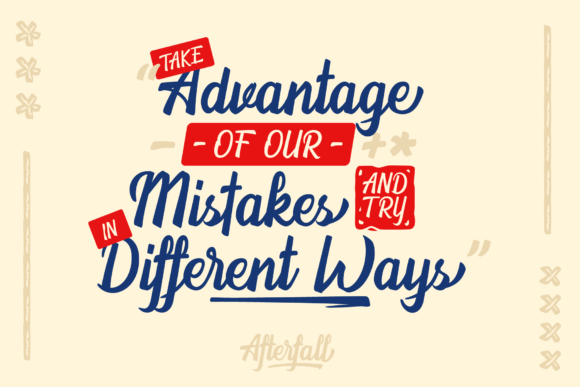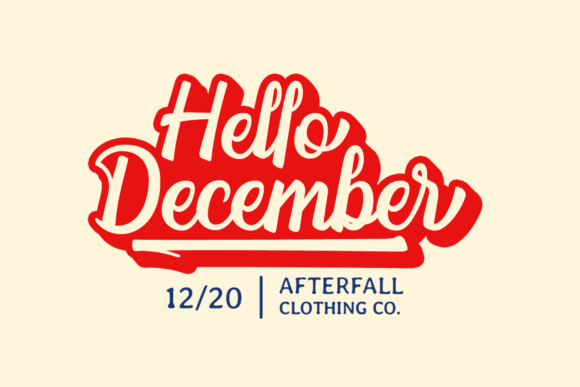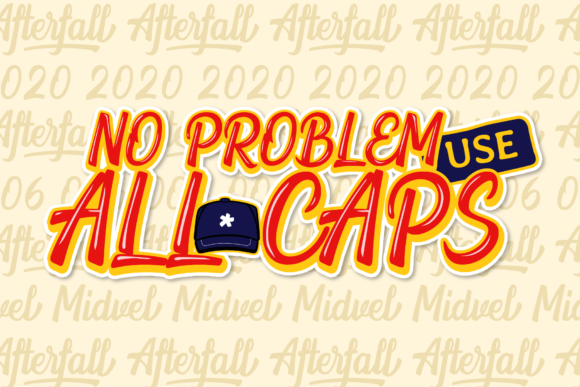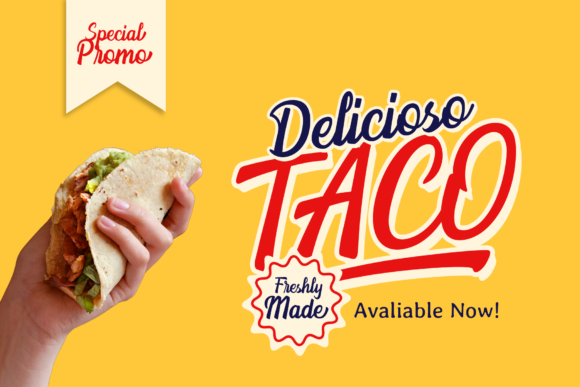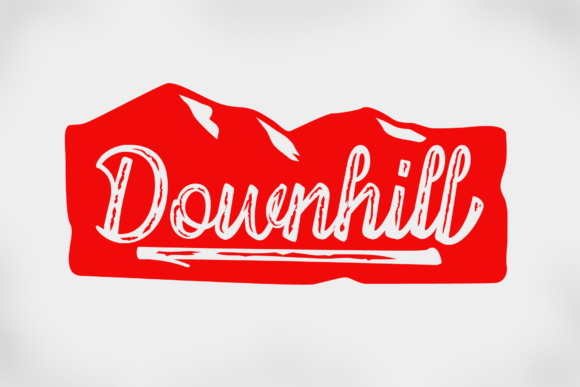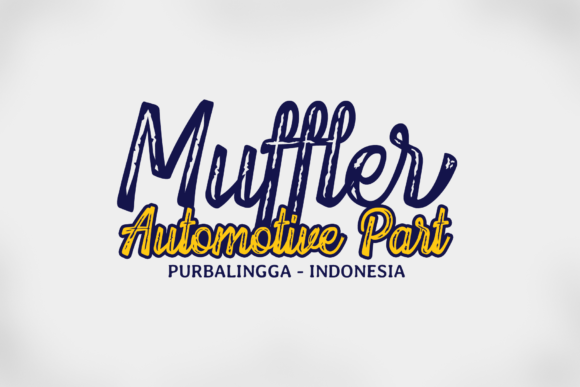
Introducing Afterfall Font: Elevate Your Designs with a Stylish and Confident Touch
Are you tired of using the same old fonts for your headlines and logotype projects? Do you want to add a touch of style and sophistication to your designs? Look no further than the Afterfall Font, a gorgeous and bold handwritten font that’s perfect for designers and crafters alike.
What Makes Afterfall Font So Special?
Afterfall Font is a stunning example of a bold and confident handwritten font. Its unique and stylish design makes it perfect for adding a touch of elegance to any project. Whether you’re working on a logo, headline, or any other design element, Afterfall Font is sure to make a statement.
One of the standout features of Afterfall Font is its PUA (Private Use Area) encoding. This means that you can access all glyphs and swashes with ease, giving you complete creative control over your designs. With PUA encoding, you can easily insert special characters, ligatures, and other unique elements that will take your designs to the next level.
The Benefits of Using Afterfall Font
So why should you choose Afterfall Font for your next project? Here are just a few benefits of using this amazing font:
- Strong and Confident Design: Afterfall Font reads as strong, confident, and dynamic, making it perfect for headlines and logotype projects that need to make a statement.
- Stylish and Sophisticated: With its unique and stylish design, Afterfall Font adds a touch of elegance to any project.
- Easy to Use: Afterfall Font is PUA encoded, making it easy to access all glyphs and swashes.
- Versatile: Afterfall Font can be used for a wide range of projects, from logos and headlines to posters and packaging.
Who Can Benefit from Afterfall Font?
Afterfall Font is perfect for a wide range of designers and crafters, including:
- Graphic Designers: Whether you’re working on a logo, brochure, or website, Afterfall Font is a great choice for adding a touch of style and sophistication to your designs.
- Logotype Designers: If you’re working on a logotype project, Afterfall Font is a great choice for creating a strong and confident brand identity.
- Crafters and Makers: If you’re creating handmade products, such as jewelry, crafts, or artwork, Afterfall Font can add a touch of elegance and sophistication to your branding and packaging.
How to Use Afterfall Font
To get the most out of Afterfall Font, be sure to experiment with different glyphs and swashes. With PUA encoding, you can easily insert special characters and ligatures to add a unique touch to your designs.
| Font Name | Afterfall Font |
| Author | Midvel |
If you’re looking for a stylish and confident font to elevate your designs, look no further than Afterfall Font. With its unique and stylish design, PUA encoding, and versatility, Afterfall Font is perfect for a wide range of projects. Whether you’re a graphic designer, logotype designer, or crafter, Afterfall Font is sure to become a go-to font in your collection.